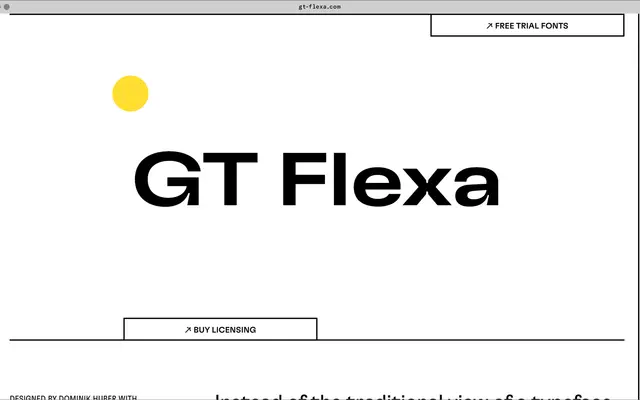
GT Flexa
A 112-style variable system by Dominik Huber and Marc Kappeler, built as a fluid design space for responsive typesetting.
A 112-style variable sans by Dominik Huber with Marc Kappeler, released in 2020. Grilli pitch it as a fluid design space rather than a static collection, allowing joyful, fully responsive typesetting. Eight widths from X Compressed to X Expanded plus a Mono each include a Lazer cut and italics, making it a strong fit for digital products and identity systems that need to flex with viewport.
Grilli describe it as a fluid design space rather than a collection of static styles. The 112-style system enables responsive typesetting across eight widths, including a dedicated Lazer cut and a Mono.